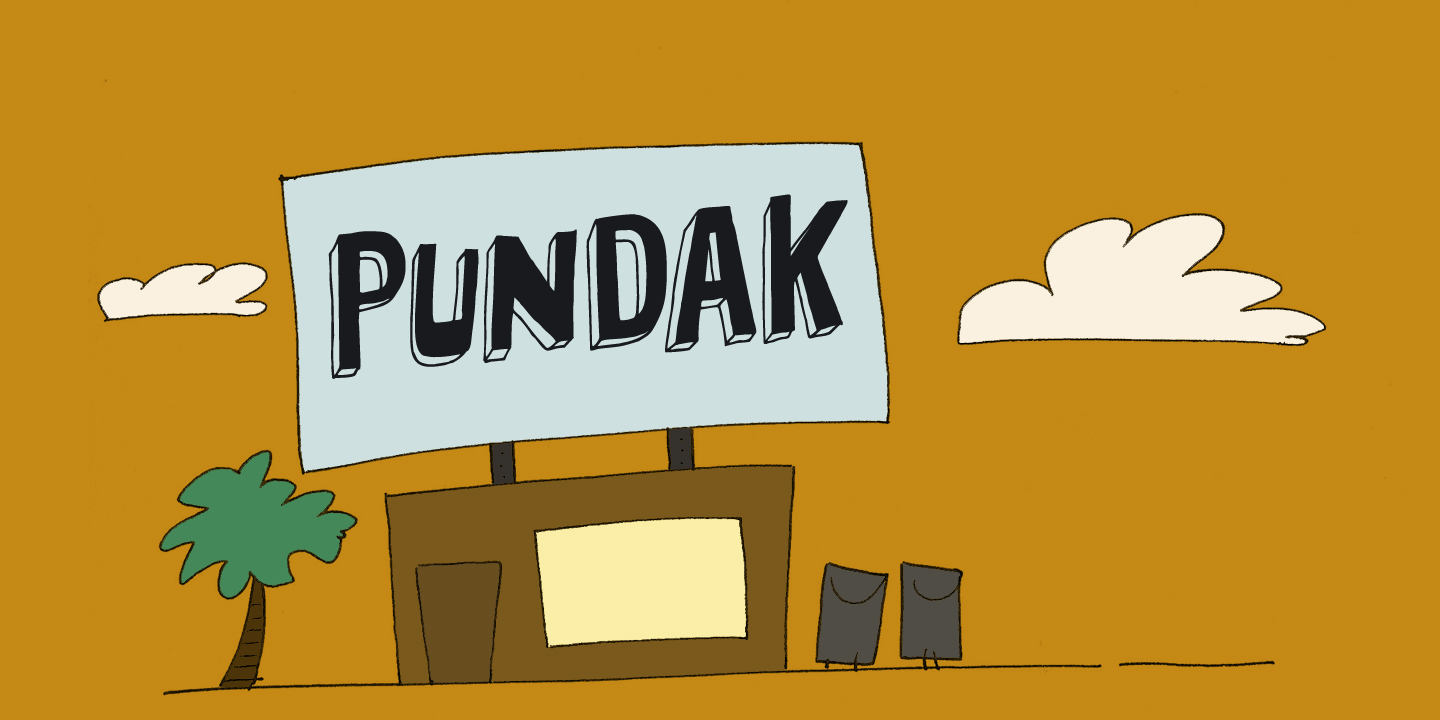
Pundak Font is a bold, experimental typeface that brings personality and punch to your designs. Ideal for music posters, streetwear branding, album covers, game titles, urban apparel, and modern art projects — it thrives where creativity meets edge.
What makes Pundak Font Free Download so exciting is its rebellious energy and unconventional style. Its sharp angles, uneven rhythm, and aggressive strokes give your typography a loud, unapologetic attitude. It’s the kind of font that refuses to blend in — and that’s exactly the point.
The Pundak Font family includes unique styles such as Regular, Grunge, Bold, and Distressed, making it a versatile choice for designers looking to add texture, depth, and raw emotion to their work. Each variation feels handcrafted and energetic.
Whether you're designing for music festivals, youth brands, edgy editorials, or underground events, Pundak Font Free Download helps you break the rules in all the right ways. It's loud, proud, and absolutely unforgettable — just what your next bold project needs.